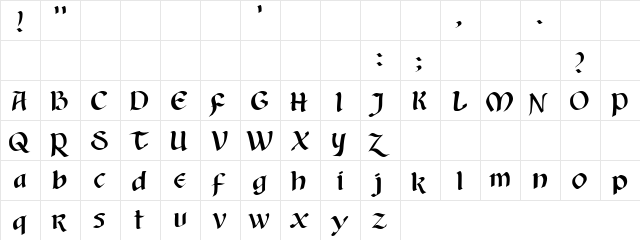
Agloow Regular
Design Context for Agloow Typeface
Agloow is a composed and adaptable typeface that performs quietly and consistently across a wide range of design contexts.